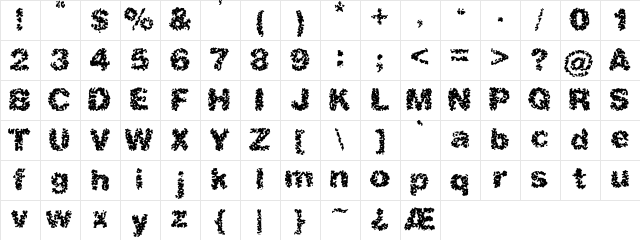
Complete Spastic BRK Regular glyph index. Displaying only characters natively supported by Spastic BRK Regular font.
Spastic BRK is a composed and adaptable typeface that performs quietly and consistently across a wide range of design contexts.